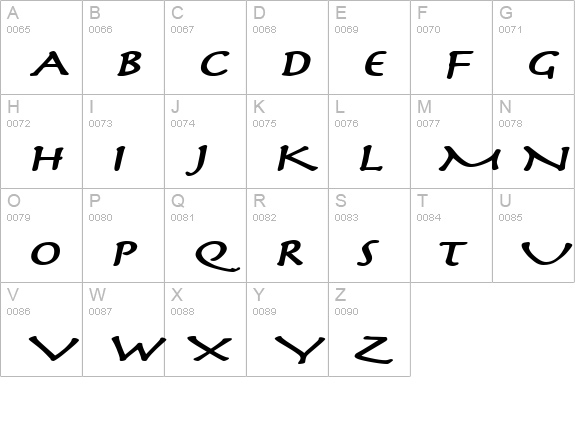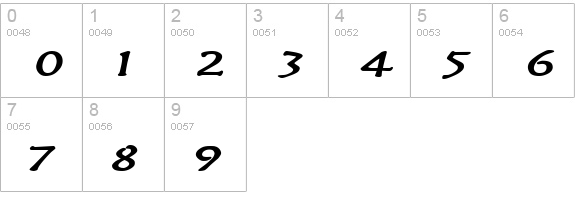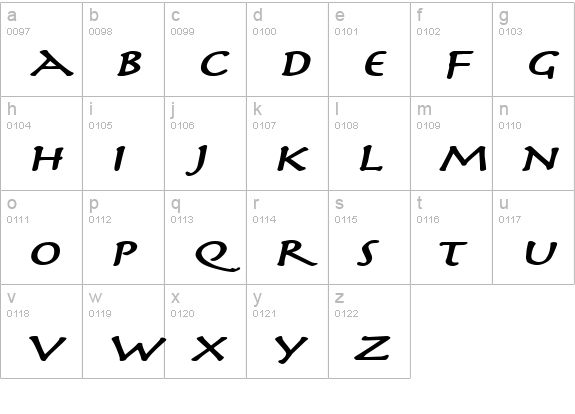
Mythology Extended BoldItalic Font Details
Mythology Extended BoldItalic is a distinctive, extended-width variant in the Mythology typeface family \xE2\x80\x94 well suited to design and typography projects.
Mythology Extended BoldItalic font is a captivating and visually striking typeface that exudes a sense of power and elegance. With its intricate design and bold, italicized characters, this font is perfect for adding a touch of mystique and sophistication to any design project. This unique font draws inspiration from ancient mythology and legends, giving it a timeless and enchanting quality. Whether you're looking to create eye-catching headlines, striking logos, or stunning graphics, Mythology Extended BoldItalic font is sure to make a lasting impression. Best of all, Mythology Extended BoldItalic font is available for free download at FontsMarket.com. So, unleash your creativity and elevate your designs with this exquisite and versatile typeface today.